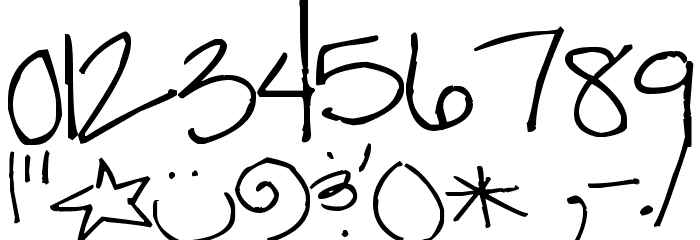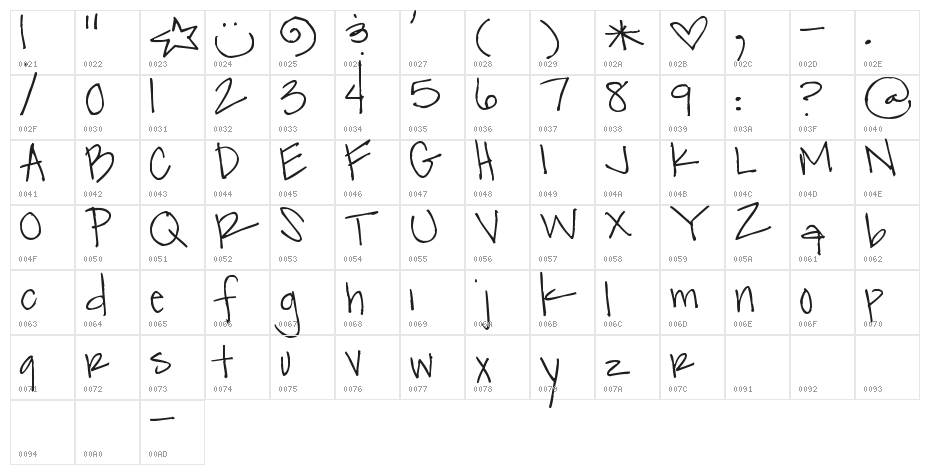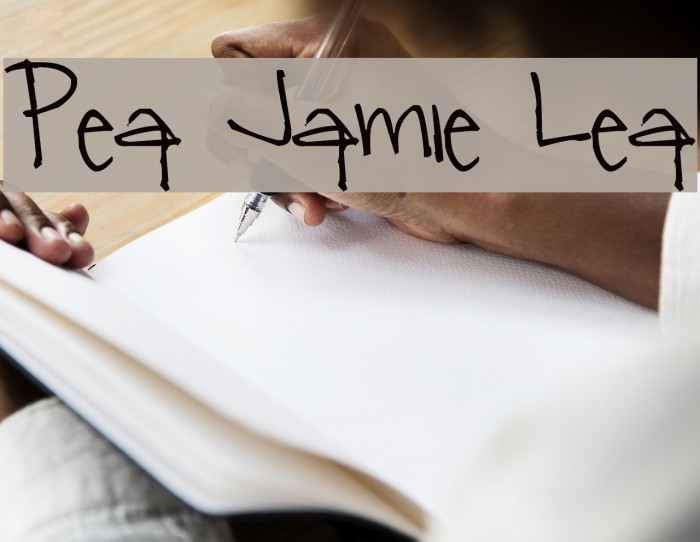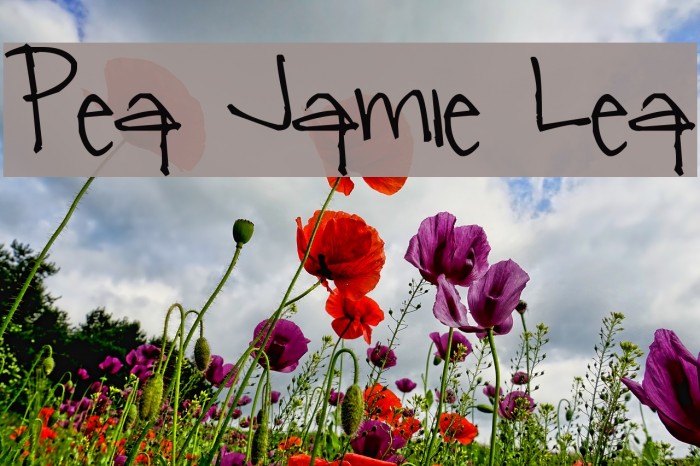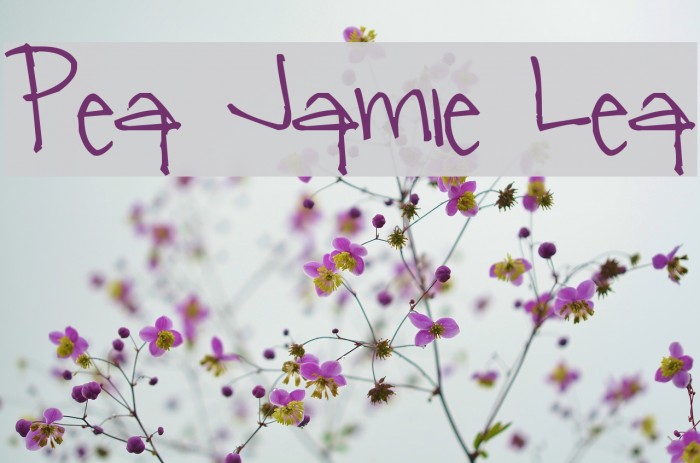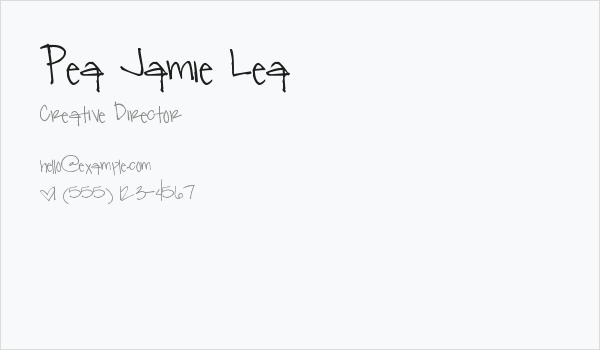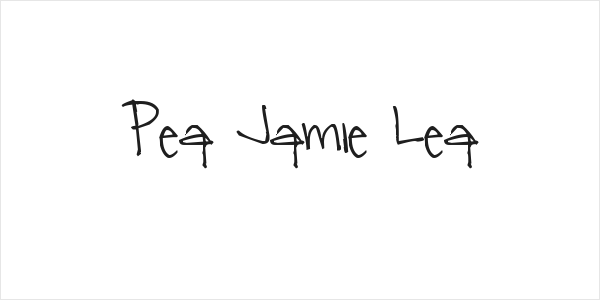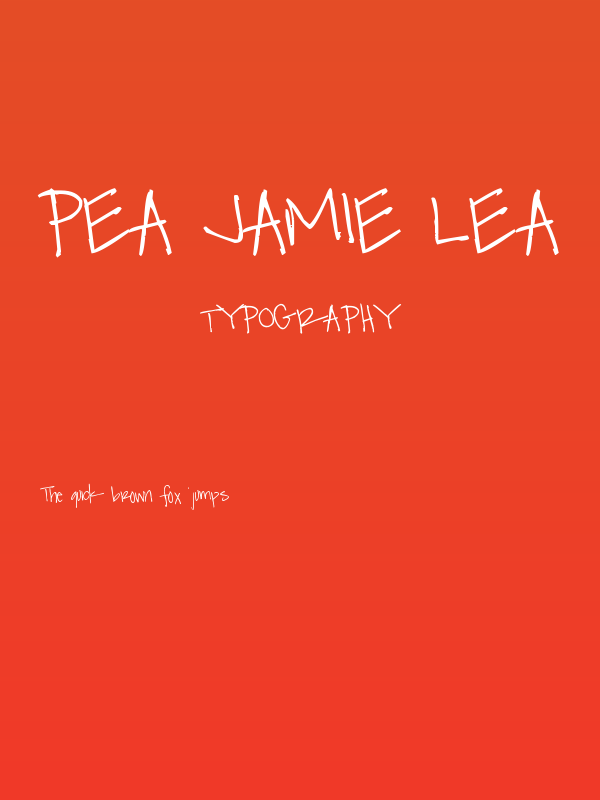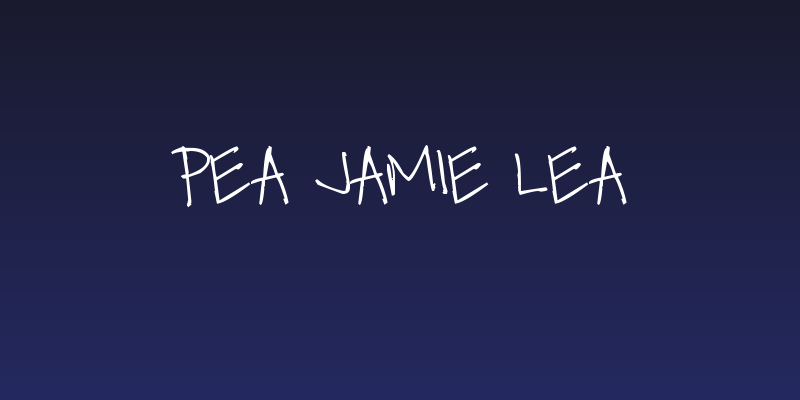
Pea Jamie Lea Font
Pea Jamie Lea Description
This font features a playful and casual handwritten style, characterized by its uneven lines and slightly tilted characters. The strokes are bold and expressive, giving it a lively and dynamic appearance. The uppercase and lowercase letters maintain a consistent style, with some letters having unique, quirky elements that add to its charm. The numbers and special characters follow the same playful design, making the font suitable for creative and informal projects. Its overall look is reminiscent of a personal note or doodle, making it perfect for projects that require a personal touch.